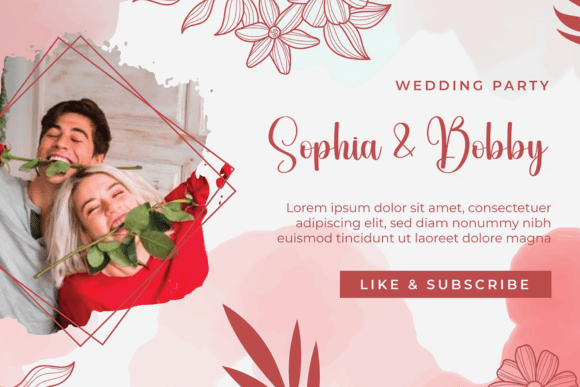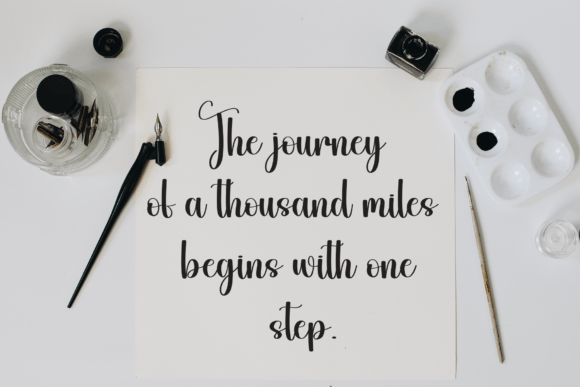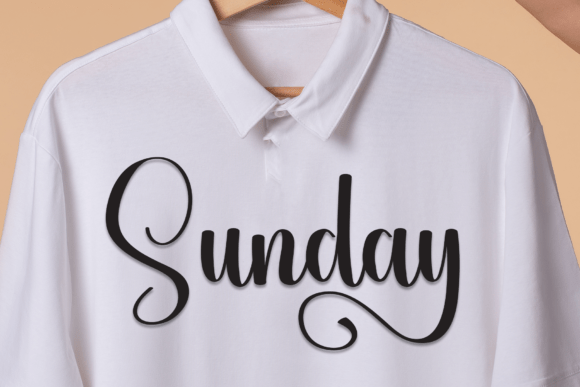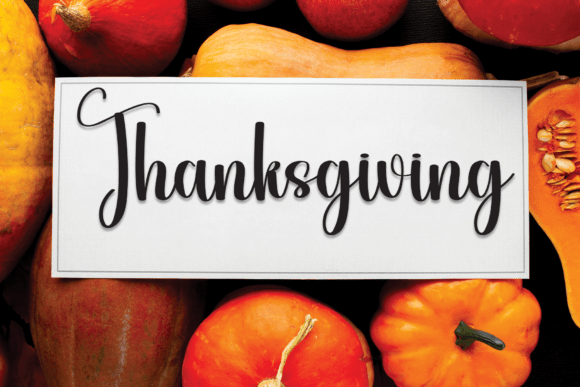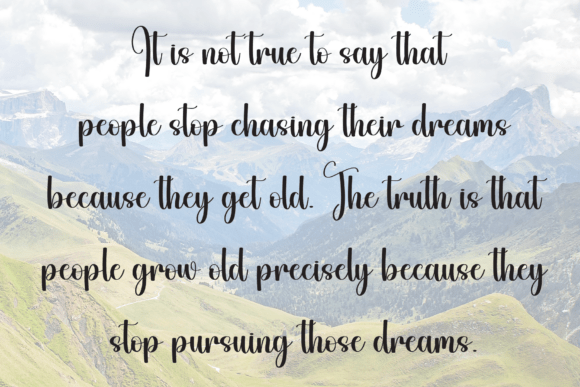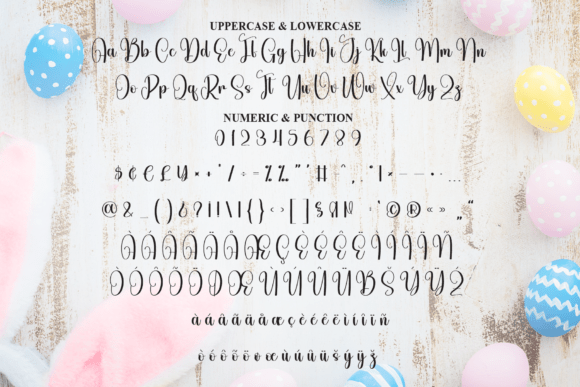
Eastery Font: Elevate Your Designs with Elegance and Modern Flair
In the world of typography, few fonts manage to strike a balance between elegance and modernity. Eastery Font is one such exceptional typeface that brings a stylish, handwritten script to the table, combining sophistication with a contemporary edge. Its unique blend of flowing strokes and organic curves infuses warmth and refinement into any project, making it an ideal choice for designers and crafters looking to add a personal touch to their work.
The Characteristics of Eastery Font
Eastery Font is distinguished by its elegant, cursive script. Each letter is crafted with meticulous attention to detail, ensuring a smooth flow from one character to the next. This results in a harmonious and visually appealing text that captures the eye. The font’s organic curves and varying line widths give it a human touch, reminiscent of handwritten calligraphy.
One of the standout features of Eastery Font is its versatility. Whether you’re working on a luxury brand’s logo, a wedding invitation, or a social media post, this font adapts seamlessly to different contexts. Its sophisticated look makes it suitable for high-end projects, while its friendly and approachable feel ensures it remains accessible and engaging.
Applications of Eastery Font
The applications of Eastery Font are vast and varied. Here are a few areas where this typeface truly shines:
- Branding: Use Eastery Font to create a memorable and elegant brand identity. Its unique style helps brands stand out and convey a sense of luxury and quality.
- Invitations: Add a touch of sophistication to your invitations, whether it’s for a wedding, a baby shower, or any other special occasion. The font’s elegant script makes any invitation feel like a premium event.
- Social Media: Elevate your social media posts with a refined and modern aesthetic. Eastery Font helps create engaging content that captures attention and resonates with your audience.
- Packaging: For crafters and product designers, Eastery Font can add a personal and artisanal feel to product labels, packaging, and marketing materials.
Why Choose Eastery Font?
There are several reasons why Eastery Font stands out in the crowded world of digital typefaces:
- Unique Style: Eastery Font offers a distinctive look that sets it apart from more common fonts. Its elegant and modern design ensures your projects look refined and sophisticated.
- Readability: Despite its intricate design, Eastery Font remains highly readable, making it suitable for both headings and body text.
- Customization: The font comes with a range of customization options, allowing you to adjust it to fit your project’s specific needs.
Tips for Using Eastery Font Effectively
To get the most out of Eastery Font, consider the following tips:
- Pair with Complementary Fonts: For maximum impact, pair Eastery Font with simpler, sans-serif fonts for contrast. This helps maintain readability while adding visual interest.
- Adjust Line Spacing: Due to its cursive nature, Eastery Font may require adjusted line spacing to ensure optimal readability. Experiment with different settings to find the perfect balance.
- Use for Headings and Accents: While Eastery Font is beautiful for body text, it’s often most effective when used for headings and accents. This allows you to draw attention to key information while maintaining a clean and organized layout.
Eastery Font is a versatile and stylish typeface that brings a touch of elegance and modern flair to any project. Its unique design, readability, and wide range of applications make it an excellent choice for designers and crafters alike. Whether you’re looking to elevate your brand, create stunning invitations, or enhance your social media presence, Eastery Font is sure to deliver. With its effortless charm and refined aesthetic, this font is poised to become a staple in your typographic arsenal.